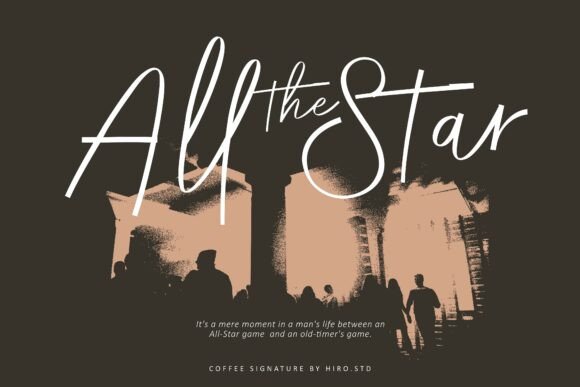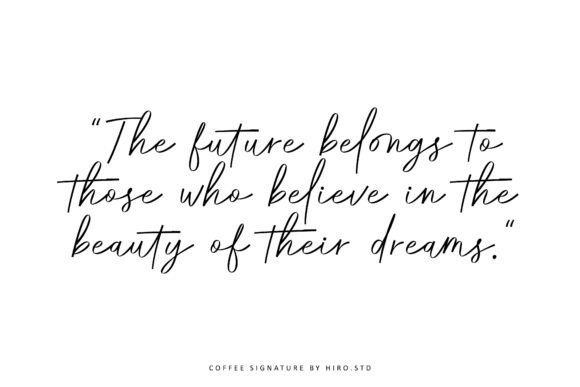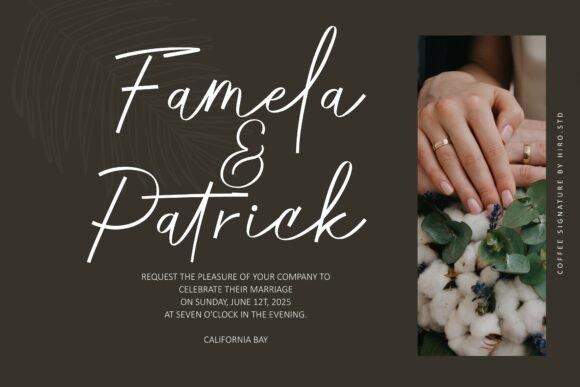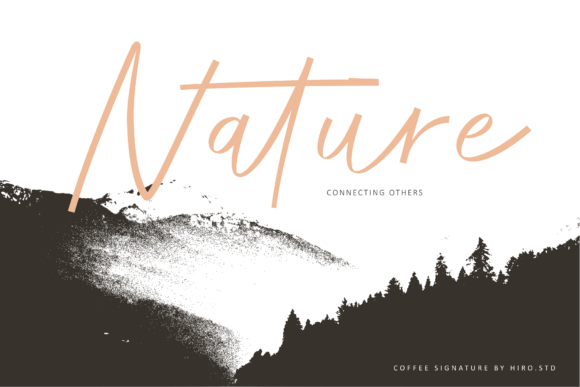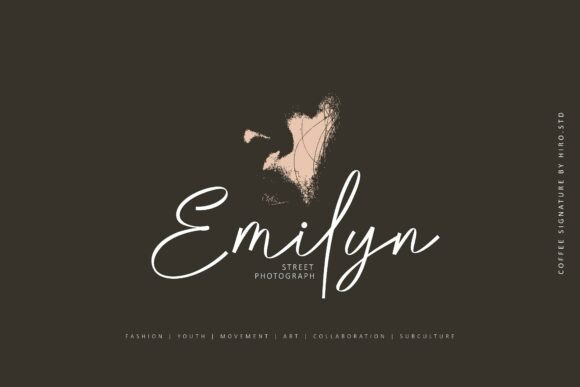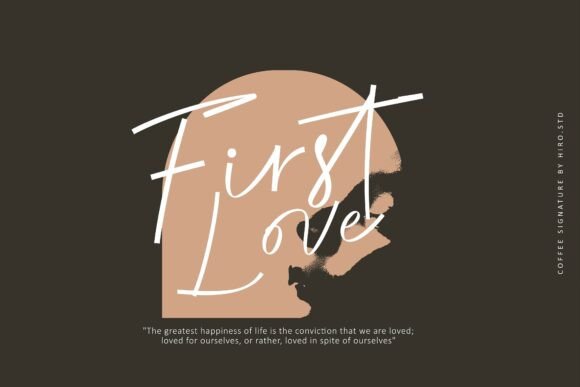
Coffee Signature Font: Elevate Your Designs with Elegant Handwritten Style
Are you looking for a font that embodies style, sophistication, and a touch of casual charm? Look no further than Coffee Signature, an elegant handwritten font designed to elevate your designs to new heights. Inspired by fashion and modern femininity, this typeface is perfect for designers and crafters seeking a dynamic yet graceful handwritten feel.
The Essence of Coffee Signature Font
Coffee Signature is more than just a font – it’s a statement piece that can transform your designs into stunning works of art. With its natural letter flow and beautiful ligatures, each character connects in perfect harmony, creating a cohesive and effortlessly stylish text. This font is designed to blend seamlessly into various designs, making it perfect for logotypes, wedding invitations, magazines, packaging, merchandise, quotes, stationery, and any design project that calls for an authentic handwriting aesthetic.
Key Features of Coffee Signature Font
- Elegant Handwritten Style: Coffee Signature boasts an elegant handwritten style that exudes sophistication and charm.
- Natural Letter Flow: The font features a natural letter flow that creates a cohesive and harmonious text.
- Beautiful Ligatures: The font includes beautiful ligatures that add a touch of elegance to your designs.
- PUA Encoding: Coffee Signature has PUA encoding, ensuring seamless access to all stylistic features and empowering your creative process with ease.
Coffee Signature is designed to cater to the needs of designers and crafters who seek a font that can add a touch of elegance and sophistication to their designs. Whether you’re working on a wedding invitation, a magazine, or a packaging design, this font is sure to impress. Its versatility and flexibility make it perfect for various design projects, from logotypes to stationery.
Why Choose Coffee Signature Font?
There are several reasons why Coffee Signature stands out from the rest:
- Unique and Authentic: The font offers a unique and authentic handwriting aesthetic that’s sure to make your designs stand out.
- High-Quality Design: Coffee Signature is designed with high-quality craftsmanship, ensuring that your designs look professional and polished.
- Ease of Use: The font is easy to use, and its PUA encoding ensures that you can access all its stylistic features with ease.
- Versatility: Coffee Signature is versatile and can be used for various design projects, from fashion to lifestyle and more.
Tips for Using Coffee Signature Font
To get the most out of Coffee Signature, here are some tips to keep in mind:
- Pair it with Neutral Backgrounds: Pair Coffee Signature with neutral backgrounds to make it stand out and create a stunning visual effect.
- Use it for Headlines and Titles: Use Coffee Signature for headlines and titles to add a touch of elegance and sophistication.
- Play with Ligatures: Play with the ligatures to create a unique and eye-catching design.
Coffee Signature Font is an elegant handwritten font that can elevate your designs to new heights. With its natural letter flow, beautiful ligatures, and PUA encoding, this font offers both beauty and functionality. Perfect for designers and crafters, Coffee Signature is versatile, easy to use, and can be used for various design projects. Whether you’re working on a wedding invitation, a magazine, or a packaging design, Coffee Signature is sure to impress.